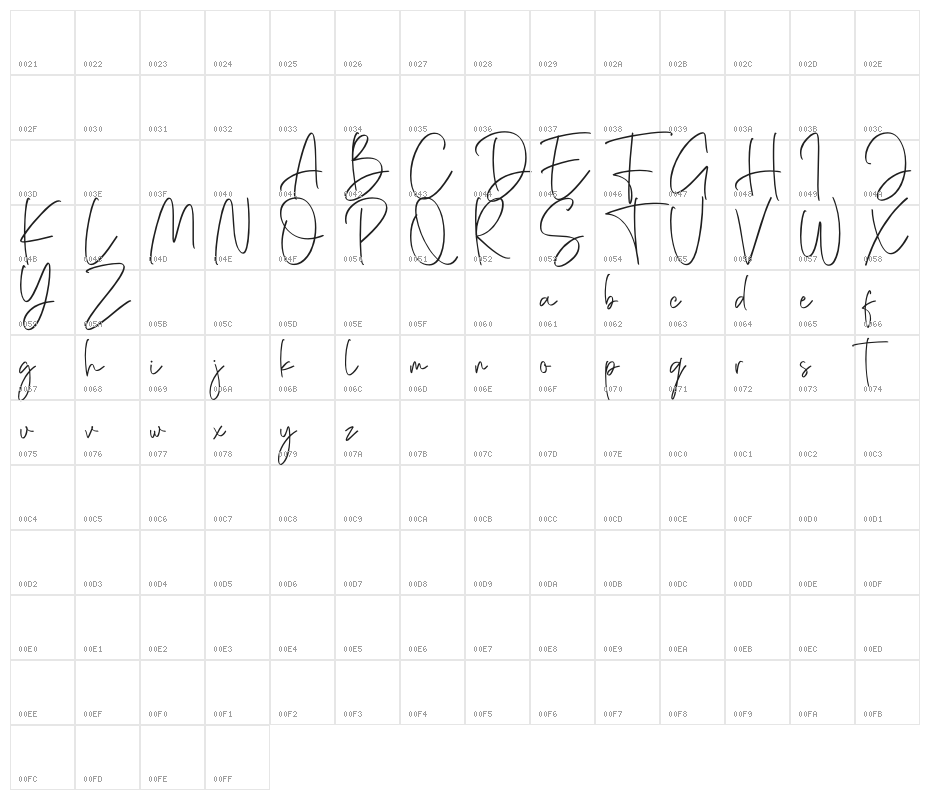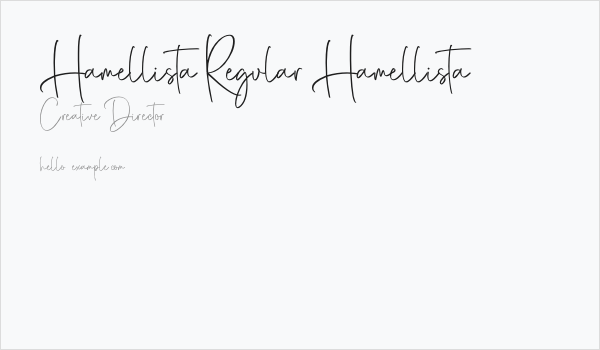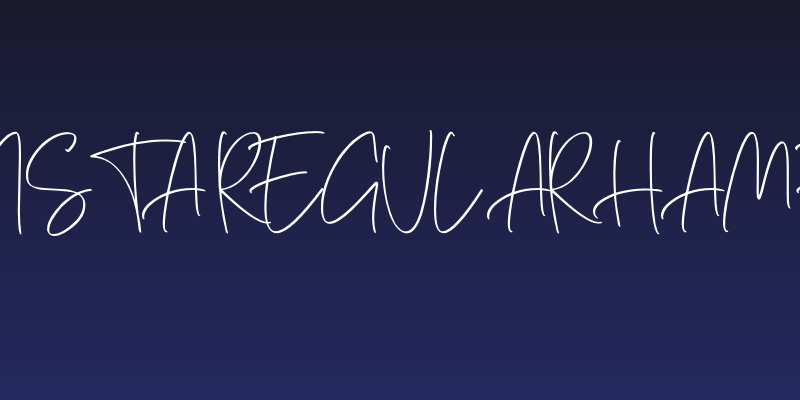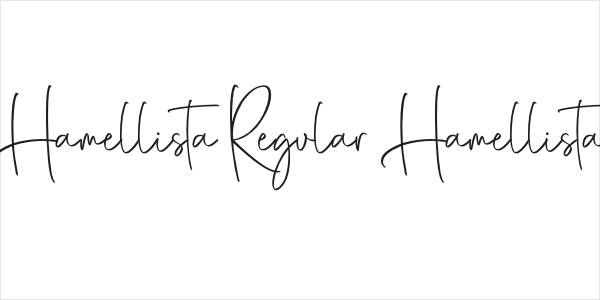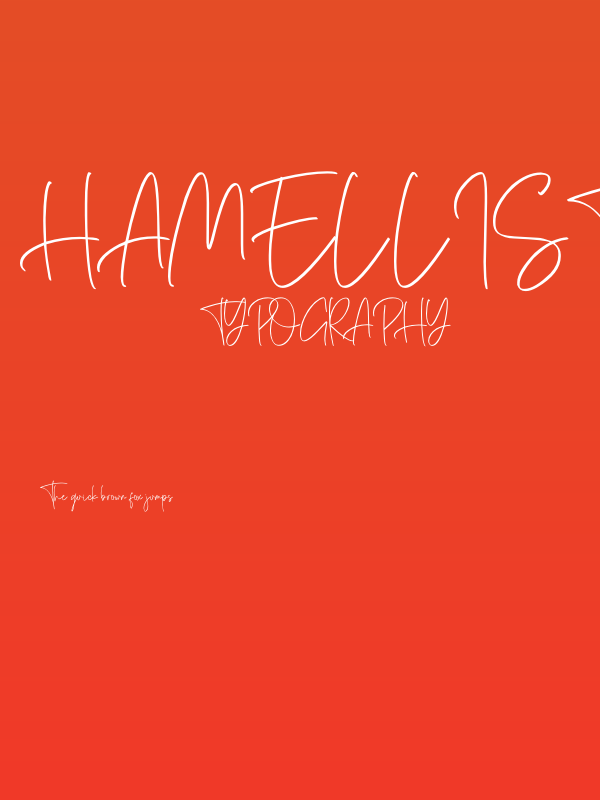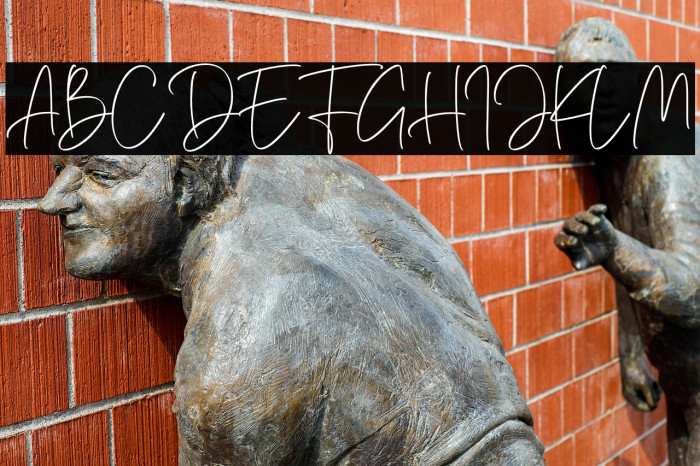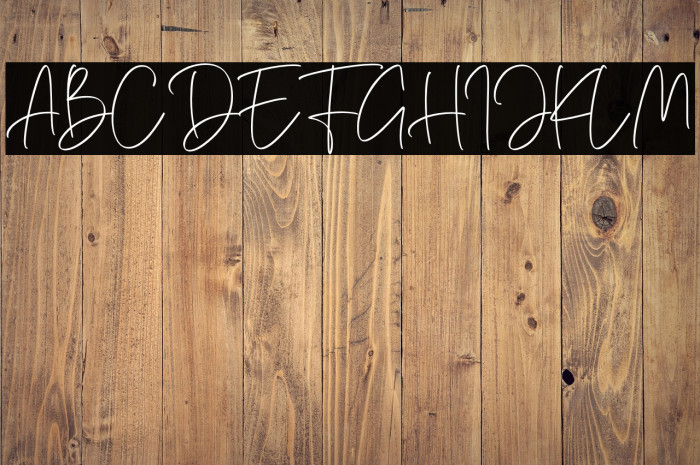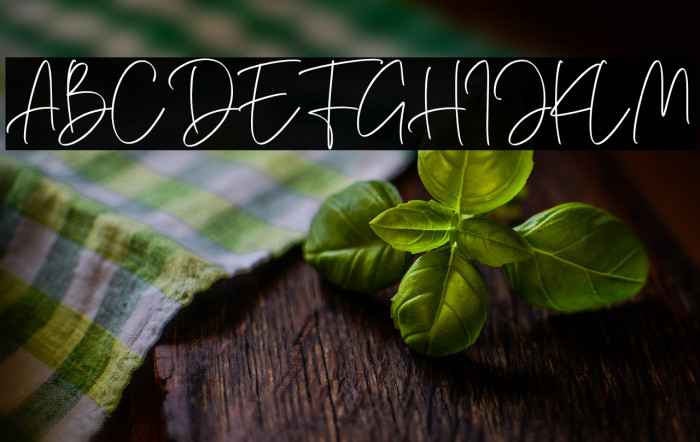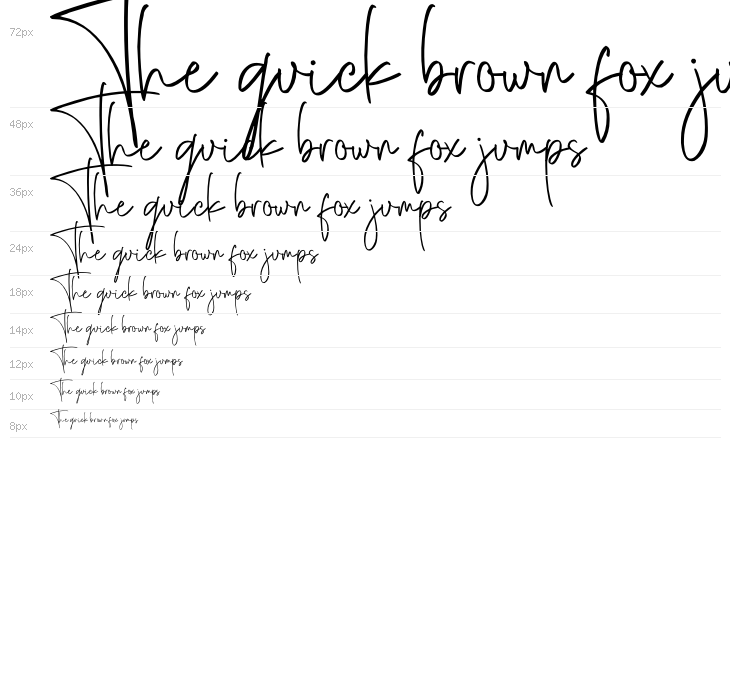
Hamellista Regular Hamellista Font
Hamellista Regular Hamellista Description
This font exudes a casual and artistic flair, characterized by its flowing, handwritten style. The letters are connected in a fluid manner, giving it a natural and personal touch. The strokes vary in thickness, adding a dynamic and lively feel to the text. The uppercase letters maintain a consistent height, while the lowercase letters exhibit playful loops and curves. This font is perfect for projects that require a personal, informal, and creative touch, such as invitations, greeting cards, or artistic branding. Its unique style makes it stand out, offering a sense of individuality and charm.
| Proposed Projects | Ideal for invitations, greeting cards, artistic branding, and personal projects. |